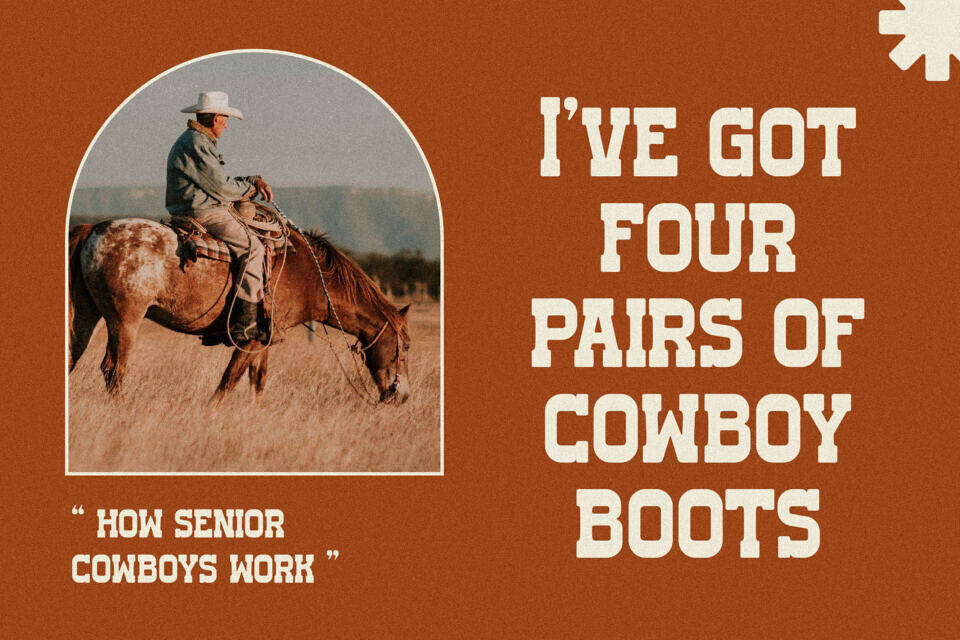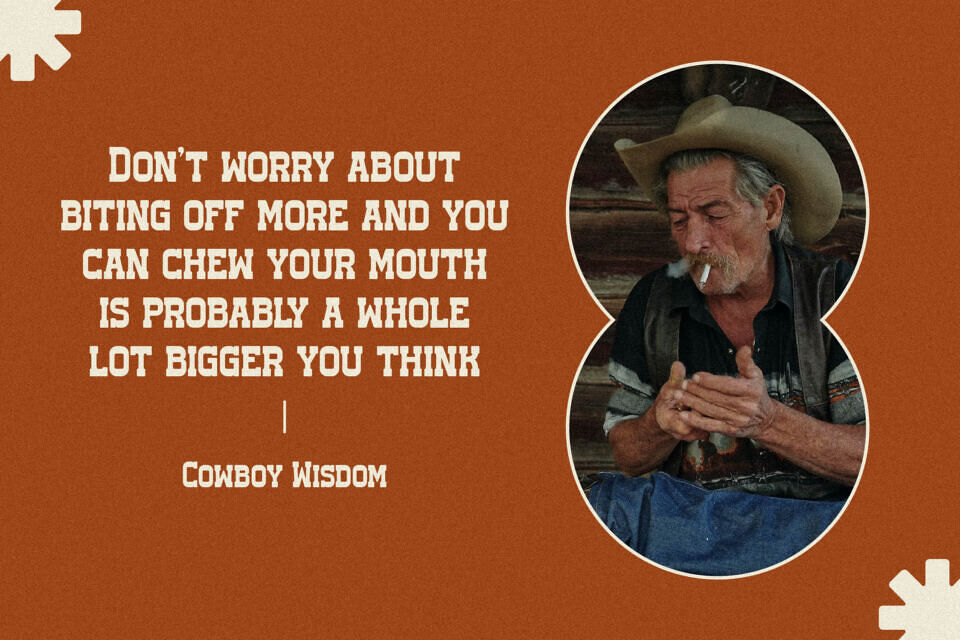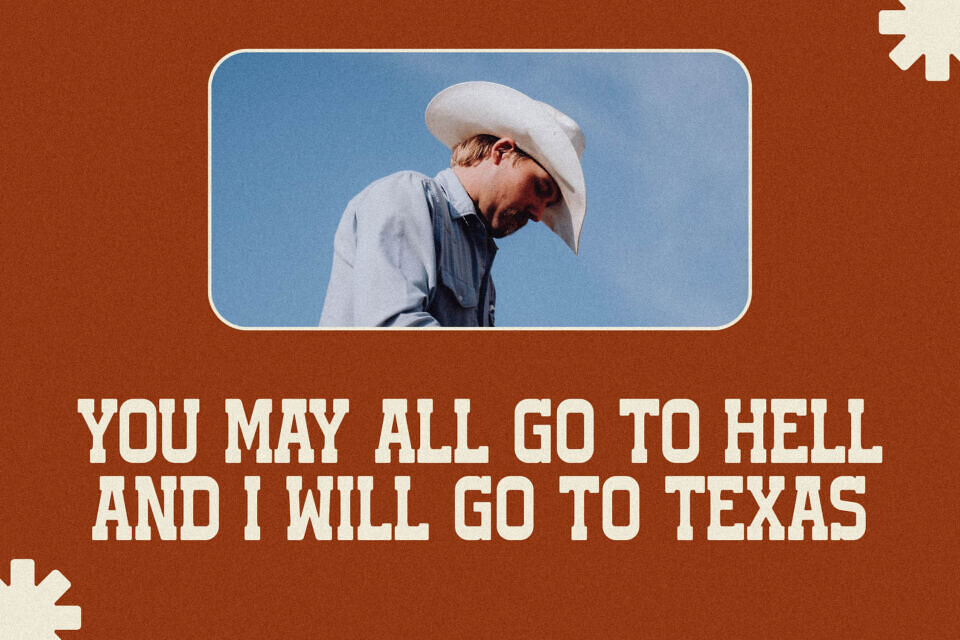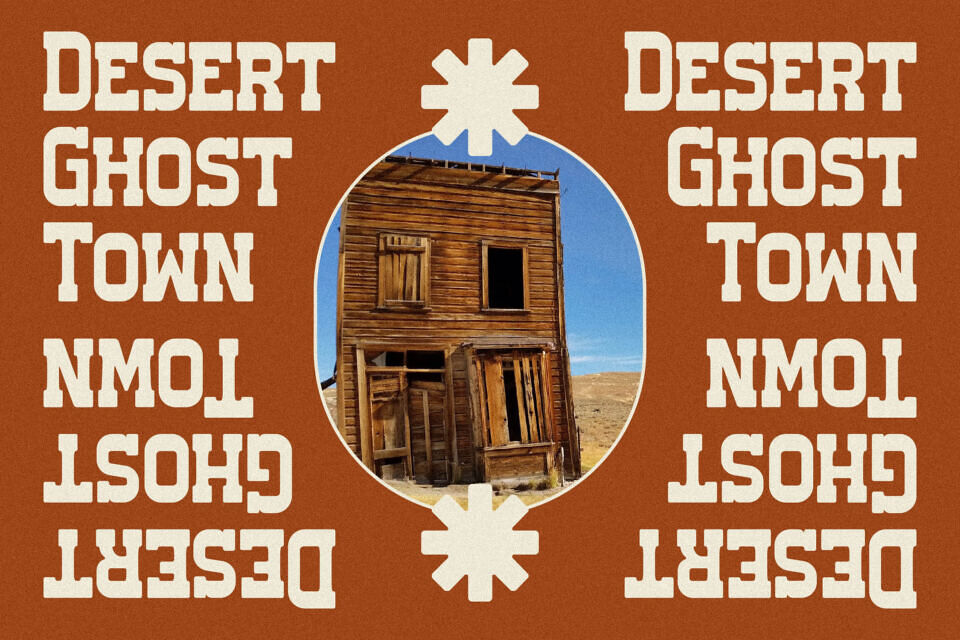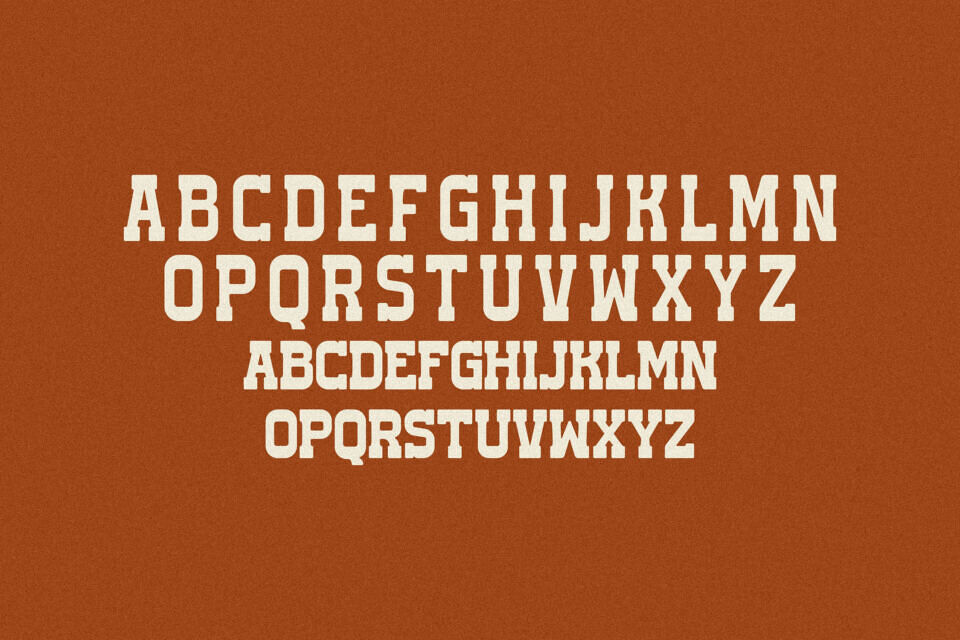
San Andreas is a bold, uppercase serif font designed by Storytype Studio that captures a rugged, Old Western aesthetic. Featuring thick slab serifs and a sturdy, vintage structure, it evokes the spirit of the Wild West and classic cowboy culture. Its strong presence makes it ideal for impactful branding, posters, and thematic headlines.